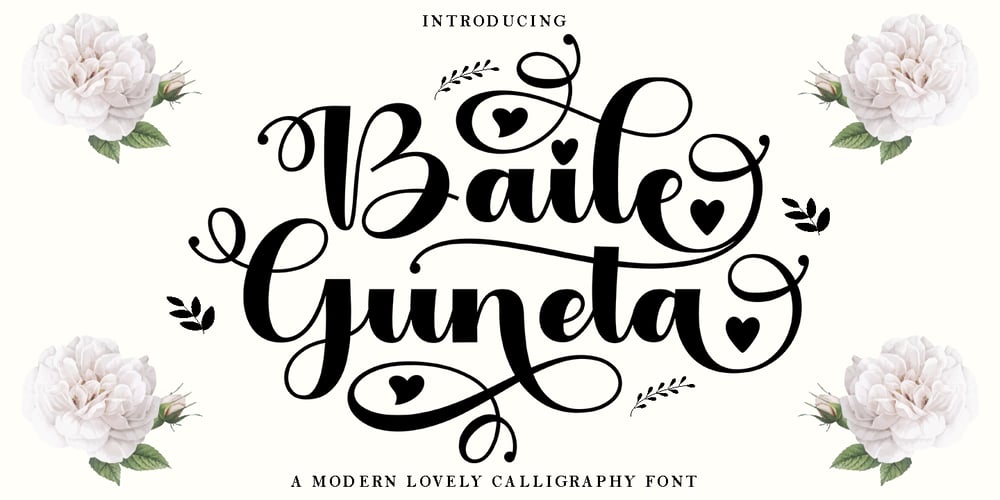
Baile Guneta Font Family was designed by Teuku Bustami and published by TM Type. Baile Guneta contains 1 styles and family package options. Baile Guneta is an elegant script font with a contemporary atmosphere and impeccable form, inspired by timeless classic calligraphy. Not too thin and not too thick, balanced and varied, this font was designed to enhance the beauty of your projects.This font is PUA encoded which means you can access all glyphs and swashes with ease!